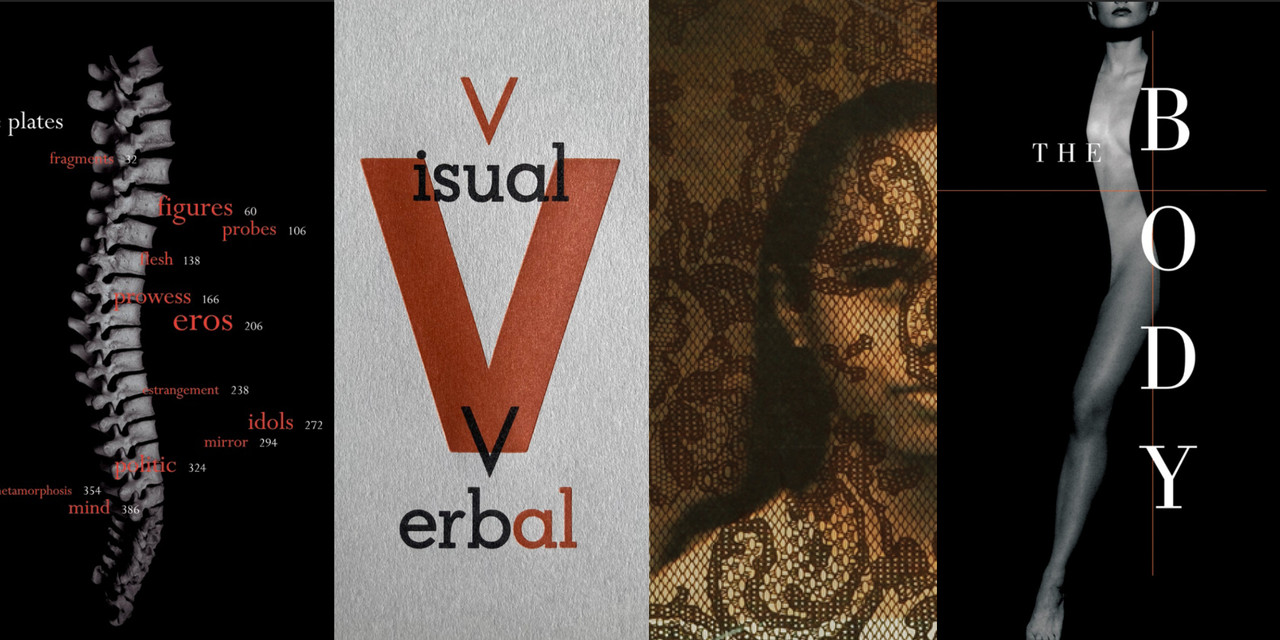
The Past is Always Present: Relevance and Longevity in Design Practice
with Lucille Tenazas
At the intersection of typography and linguistics, a designer and educator continues to create complex and poetic visual expression.
“When I think of Lucille Tenazas, the phrase ‘soft power’ comes to mind: not the political definition, but a graphic-design version, based on the persuasiveness of her ideas, the beauty of her work and the consistency of her intelligent voice. Tenazas, who radiates focus, engagement and calm, is a charismatic leader and design practitioner who has spent years in the classroom, nurturing an entire generation of designers.”
—Lorraine Wild, from the essay on Lucille Tenazas, 2013 AIGA Medalist
In this salon, Lucille will talk about the linguistic approaches that underpin her work in a consistent thread over the course of over four decades. Inspired by modernist approaches gleaned from Russian Constructivism and Dutch De Stijl, her work reflects a rigorous architectonic quality with an intuitive sense of form.
Lucille Tenazas
Lucille Tenazas is an educator and graphic designer based in New York and San Francisco. She is the Henry Wolf Professor of Communication Design in the School of Art, Media and Technology (AMT) at Parsons School of Design in New York. She was the founding chair of the MFA Design Program at California College of the Arts (CCA), launched in 2000, with an emphasis on form-giving, teaching, and leadership.
Lucille established Tenazas Design in San Francisco in 1985 and continues her design practice in New York. Her work is at the intersection of typography and linguistics, with design that reflects complex and poetic means of visual expression. She was the national president of the American Institute of Graphic Arts (AIGA) from 1996-98 and was awarded the AIGA Medal for lifetime achievement in design in 2013. She received the National Design Award for Communication Design by the Cooper Hewitt National Design Museum in 2002.
Originally from Manila, the Philippines, she has taught and practiced in the United States since 1979, a trajectory that included living in San Francisco, Rome, Italy and New York. She studied at CCA and received her MFA in Design from Cranbrook Academy of Art. Lucille is an authority in the evolving state of design education and has conducted workshops throughout the United States, Asia, Europe and the Middle East.